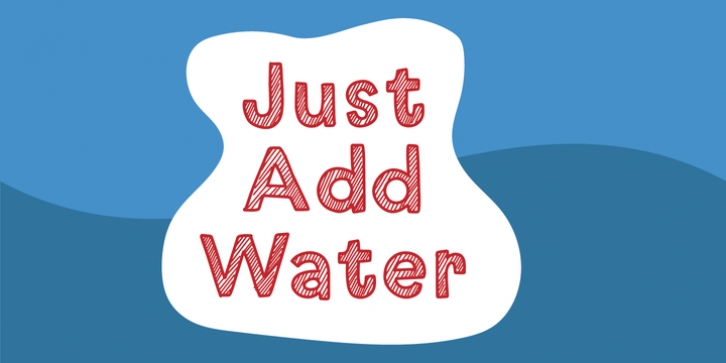
Just add water and mix! Sometimes it is so easy to make a cake! In this case, it is also very easy to make something really good looking using this font. Actually, all you need is to add one of the flavours: Regular, Italic, Black or Black Italic, and your design suddenly looks super neat! Ingredients: 4 fonts, multilingual support, fi and fl ligatures as well as ligatures for most common double-letter substitution. Shake well and enjoy!